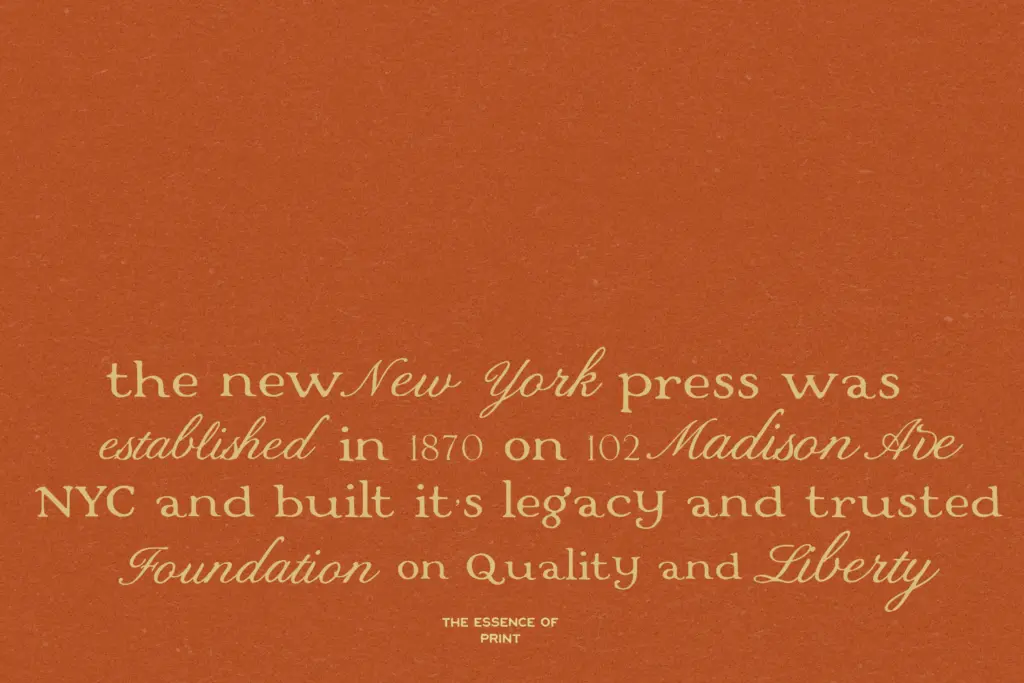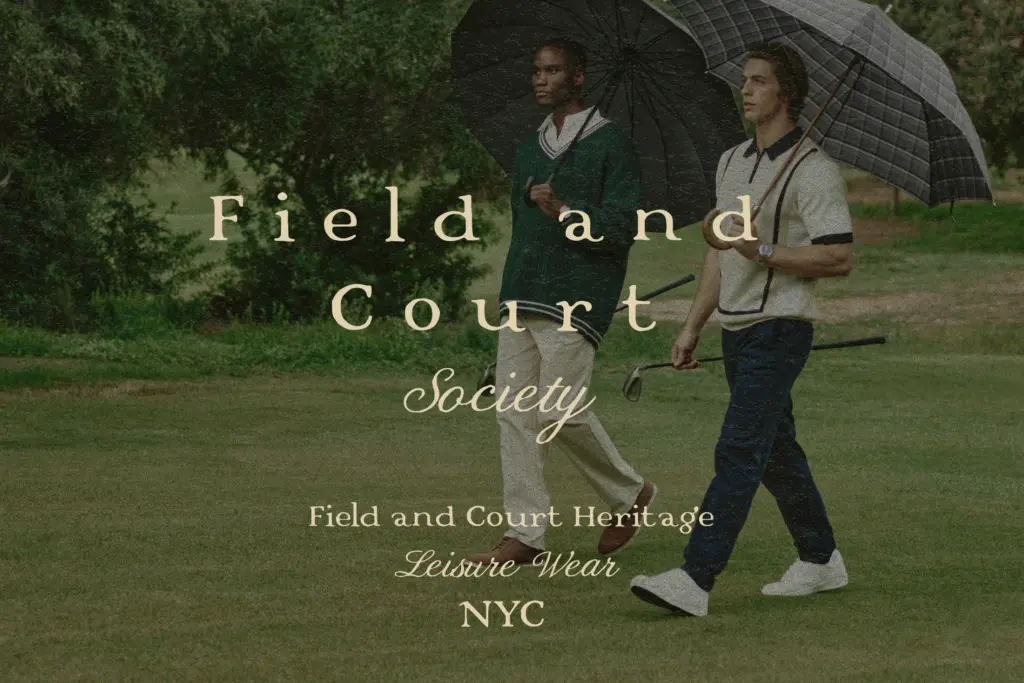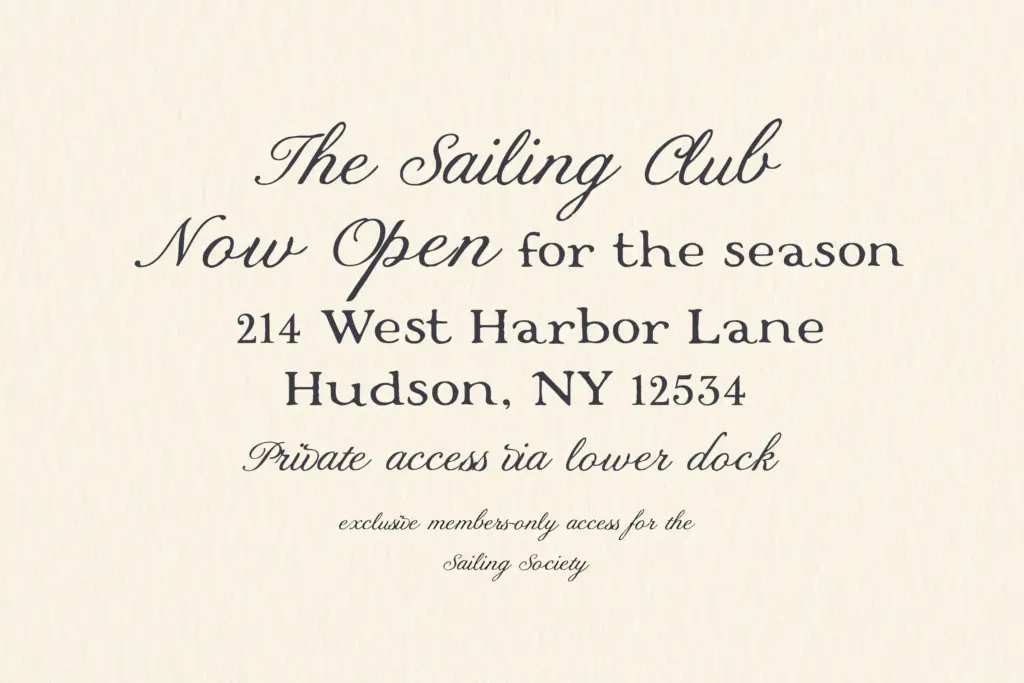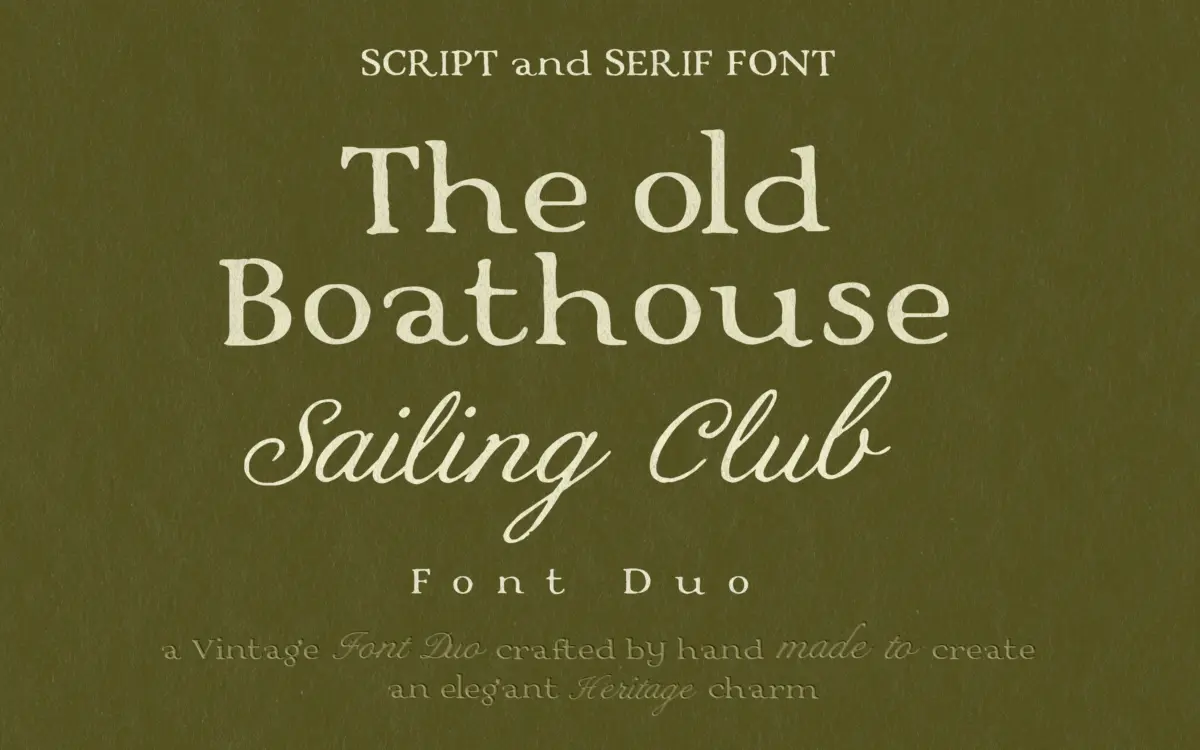
This is a two-face pairing built around a single idea: heritage without costume. The serif half carries softened edges and slightly irregular strokes that read as hand-finished rather than hand-drawn in the loud sense — no exaggerated ink traps or wobble for its own sake. Proportions stay balanced and upright, closer to a worn letterpress plate than a rustic scrawl. The companion script leans calligraphic, with connected joins and a moderate slant that keeps it legible rather than decorative. Together they sit in that overused but accurate niche of “old money” branding: restrained, a little formal, not trying to impress with flourish.
Where the design earns its keep is in the restraint. Nothing here shouts. The serif’s terminals are gently rounded rather than sharp, which softens the whole texture at a glance and gives it that embossed-card, aged-document feel the brief aims for. The script doesn’t oversell the elegance either — the strokes are even in weight, which keeps it from tipping into wedding-invitation cliché, though it flirts with that territory.
As a duo, the pairing logic is straightforward: serif for structure and body-adjacent use, script for accent and signature moments. The serif’s softened, slightly irregular letterforms give it enough personality to work as a headline face on its own, while the script is clearly meant for short bursts — a name, a monogram, a single word over a serif line rather than a paragraph. That’s typical of hand-lettered scripts generally, and this one doesn’t pretend otherwise; the joins and slant are built for words, not sentences.
No specific details on language coverage, alternate characters, or ligature sets are given, so treat those as unknowns rather than assumptions — worth checking swatches for accented characters if the project needs them before committing to a full brand system built on the script half.
The obvious home for this pairing is exactly what’s suggested: membership cards, embossed stationery, packaging for goods that want to feel established, and wedding stationery that wants warmth without lace-and-flourish maximalism. The serif is sturdy enough to anchor a logotype or a product label on its own, and the script works well layered over it for a monogram or a tagline treatment.
It’s less suited to long-form editorial text — the softened, hand-finished character of the serif is a display trait, not a body-copy one, and at small sizes that texture will just look like noise rather than intention. Sport and leisure branding, coastal or heritage-themed identities, and packaging that wants a quietly confident finish are the strongest fits. Anyone building a brand that needs more energy or contemporary edge should look elsewhere; this duo is deliberately calm, and pushing it into a loud context will fight the design rather than flatter it.
- Serif's softened terminals give it a hand-finished feel without tipping into rustic cliché
- Script stays even-weighted and legible rather than overly ornate
- The two faces pair logically, with clear roles for structure versus accent
- No confirmed language or alternate-character support, so multilingual or expressive-layout needs are unverified
- Restrained character limits the duo mostly to short-form display use, not body copy
A competent, restrained pairing that does exactly what it promises: heritage warmth without theatrics. It's a display duo, not a workhorse system, and it will struggle outside the quiet-luxury lane it was built for.